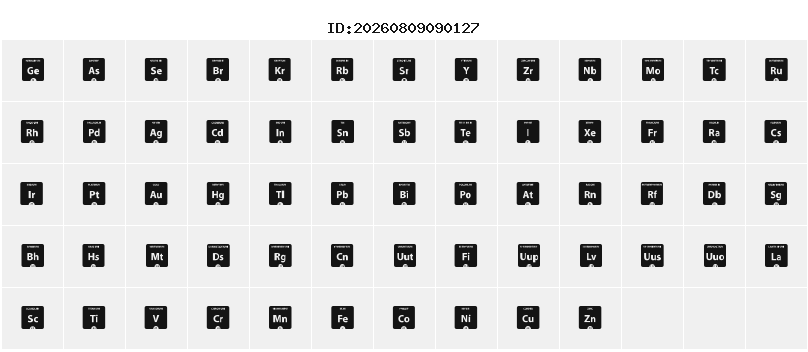
• Font Name: Periodic Table of Elements
• Designer: Woodcutter Manero
Periodic Table of Elements.ttf is a modern, elegant sans-serif font designed for ultimate readability and visual harmony. Perfect for branding, headlines, web design, and print materials.